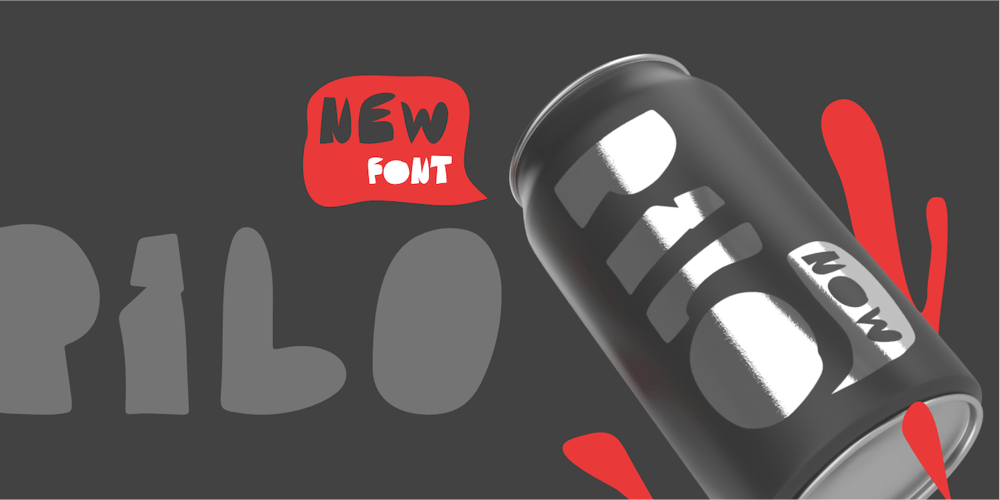
Pilo
Pilo font
Pilo Font Family was designed by Afiat Sukmaraga and published by Hati. Pilo contains 1 styles and family package options. Pilo, isn’t just a font, it’s a party on the page! Bursting with youthful energy and a playful spirit, its bold strokes and dynamic curves practically leap off the screen. This font is perfect for capturing the joy of being young and letting your wild side roar!